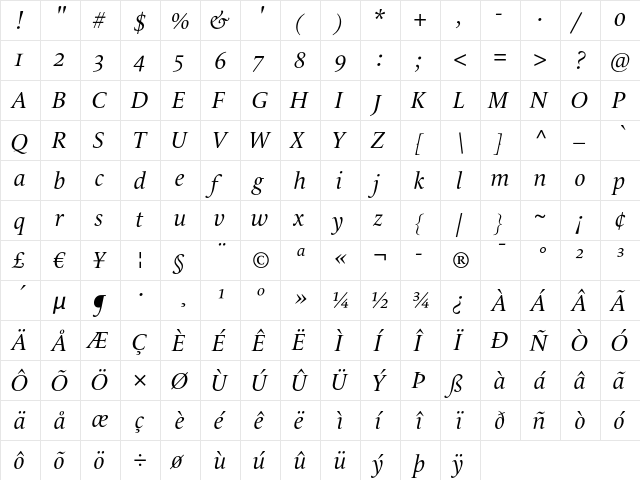
LeMonde Livre OsF Italic
Design Context for LeMonde Livre OsF Typeface
LeMonde Livre OsF offers clean, dependable letterforms without strong stylistic allegiance, making it a practical choice for designers who need flexibility. The dynamic lean of this cut emphasises speed and emphasis in any layout.
Pro Tip: Try LeMonde Livre OsF for annotation and caption copy alongside an upright companion — the contrast in angle creates a dynamic but ordered typographic system.